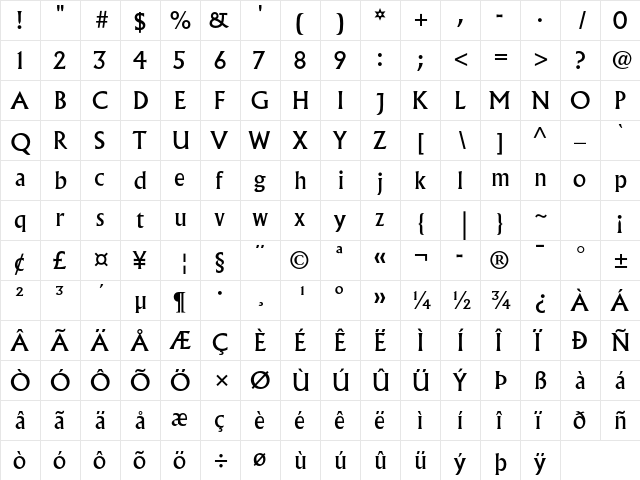
Albertus MT Std Regular
| Designer | Berthold Wolpe |
Design Context for Albertus MT Std Typeface
Albertus MT Std offers clean, dependable letterforms without strong stylistic allegiance, making it a practical choice for designers who need flexibility.